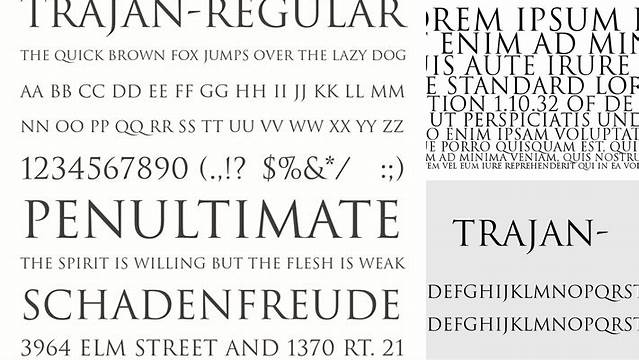
1. What is Trajan Regular Font?
Trajan Regular is a typeface designed by Carol Twombly in 1989 for Adobe. Inspired by the inscription at the base of Trajan's Column in Rome, it's an all-caps serif font known for its elegant and authoritative appearance. This makes it a favorite for projects aiming to convey sophistication, history, or importance. Its clean lines and balanced proportions make it highly readable and visually appealing, perfect for headlines and display text. Using Trajan Regular can instantly give your designs a touch of classical elegance, setting them apart from more contemporary fonts.
2. Why Choose Trajan Regular for Your Mac?
There are several compelling reasons to choose Trajan Regular for your Mac. First and foremost, its timeless design ensures that it never goes out of style. Whether you're working on a book cover, a movie poster, or a website header, this font adds a touch of class that few others can match. Additionally, Trajan Regular is incredibly versatile. While it excels in formal settings, it can also be used creatively in more modern designs to provide a unique contrast. Its availability on Mac platforms means seamless integration with your favorite design software, ensuring a smooth workflow. Imagine the possibilities when you incorporate this iconic typeface into your next project, guys!
30. Mastering the Art of Using Trajan Regular Font
To truly master the art of using Trajan Regular font, designers must delve into its nuances and understand its strengths and limitations. This involves experimenting with various font sizes, weights, and spacing to achieve optimal readability and visual impact. Additionally, it’s essential to consider the context in which the font is used, ensuring that it complements the overall design and enhances the message being conveyed. By studying examples of successful Trajan Regular applications and continuously honing their skills, designers can unlock the full potential of this iconic typeface and create truly exceptional designs. Embrace the journey of mastering Trajan Regular, and watch your designs flourish!